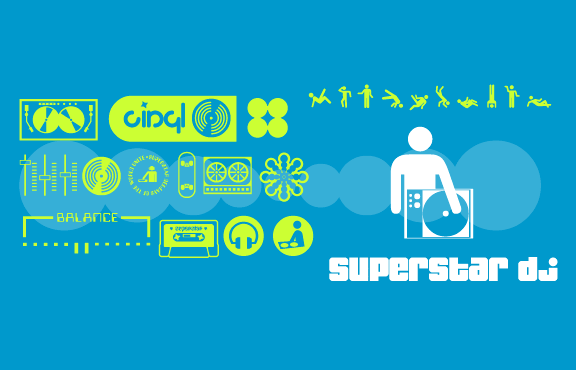
Superstar DJ Font Family by Fontalicious
Dingbat set that once again proves you don’t have to know someone on the inside to have top-of-the-line, high-quality graphics on your promo flyers. Please send me some mix tapes!